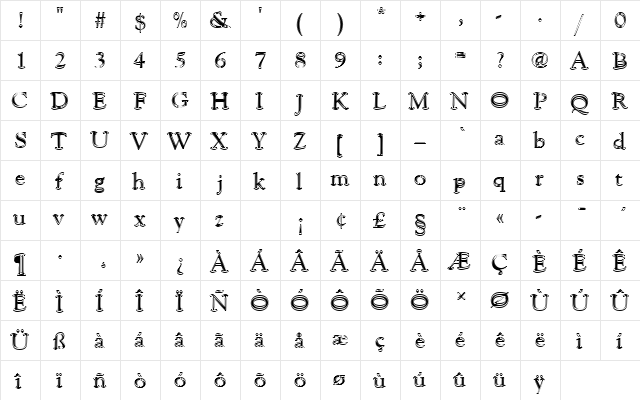
GoudyCatTRegIn1 Regular Font Preview
GoudyCatTRegIn1 Regular
GoudyCatTRegIn1 Regular Font Details
Design Context for GoudyCatTRegIn1 Typeface
GoudyCatTRegIn1 is a composed and adaptable typeface that performs quietly and consistently across a wide range of design contexts.